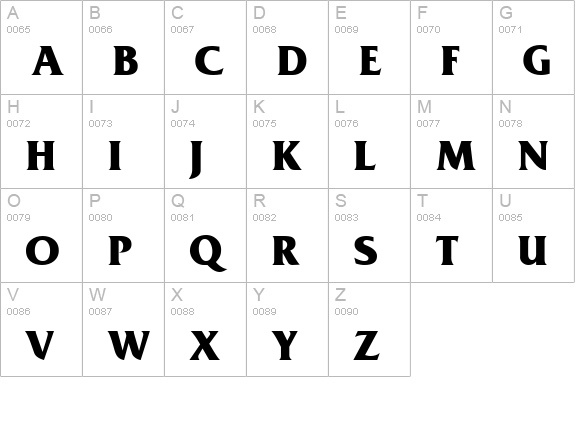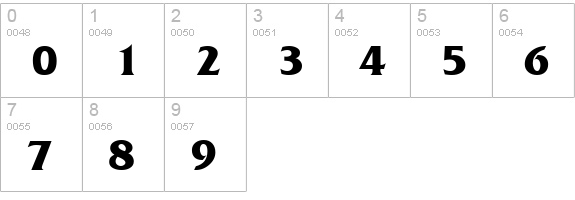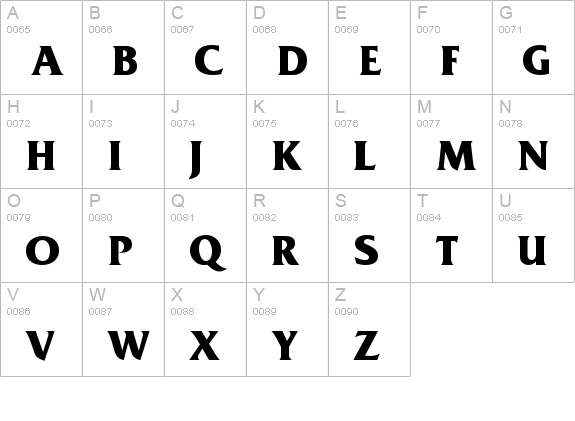
FritzQuad Bold is a strong, high-contrast variant in the FritzQuad typeface family \xE2\x80\x94 well suited to headlines, attention-grabbing titles, and strong calls-to-action.
FritzQuad Bold font is a bold and impactful typeface designed for modern and eye-catching designs. Its strong and sturdy letterforms make it perfect for headlines, titles, and branding projects that demand attention. The bold weight of FritzQuad exudes confidence and authority, making it a versatile choice for a wide range of design applications. What sets FritzQuad Bold font apart is not just its boldness, but also its versatility. Whether you're working on a digital design project, print materials, or signage, this font will make a bold statement and elevate your design to the next level. And the best part? FritzQuad Bold font is available for free download at FontsMarket.com. So you can easily access this powerful typeface and incorporate it into your projects without any cost. Don't miss out on the opportunity to enhance your designs with the bold and striking FritzQuad Bold font.